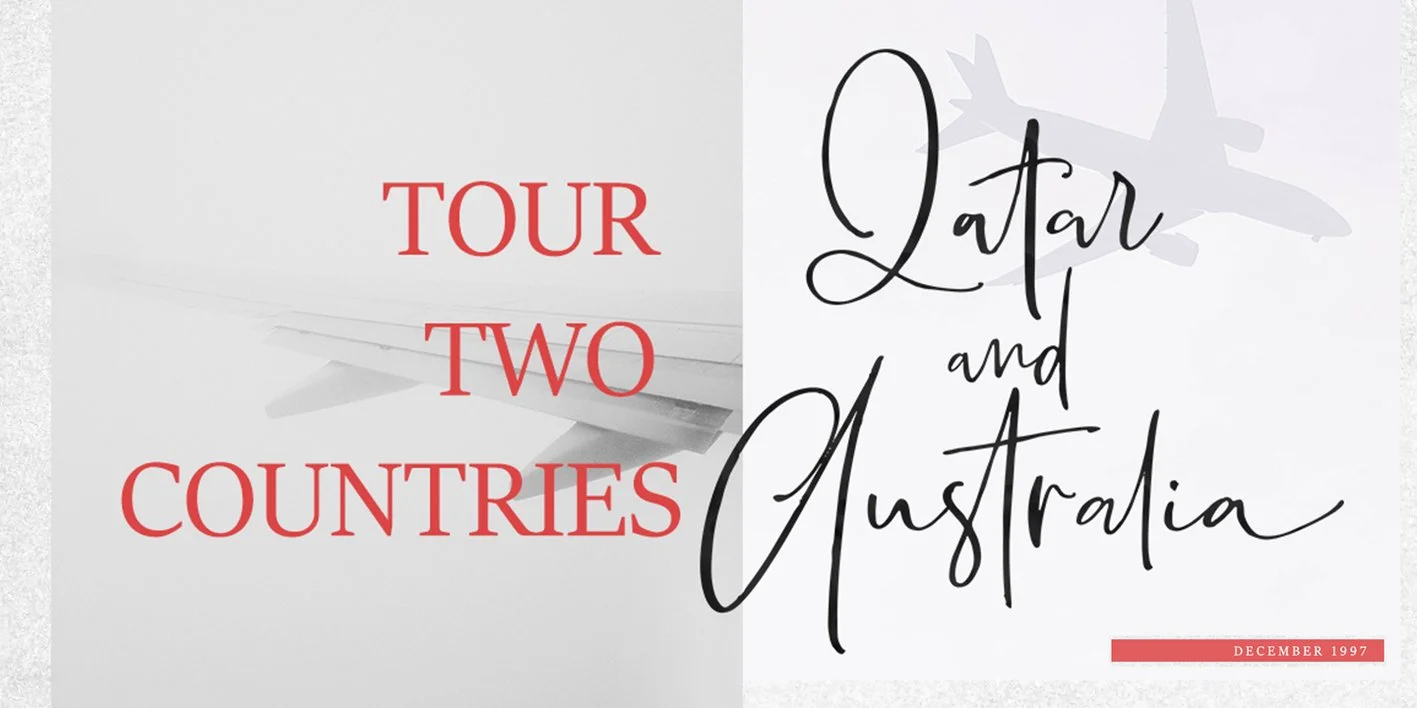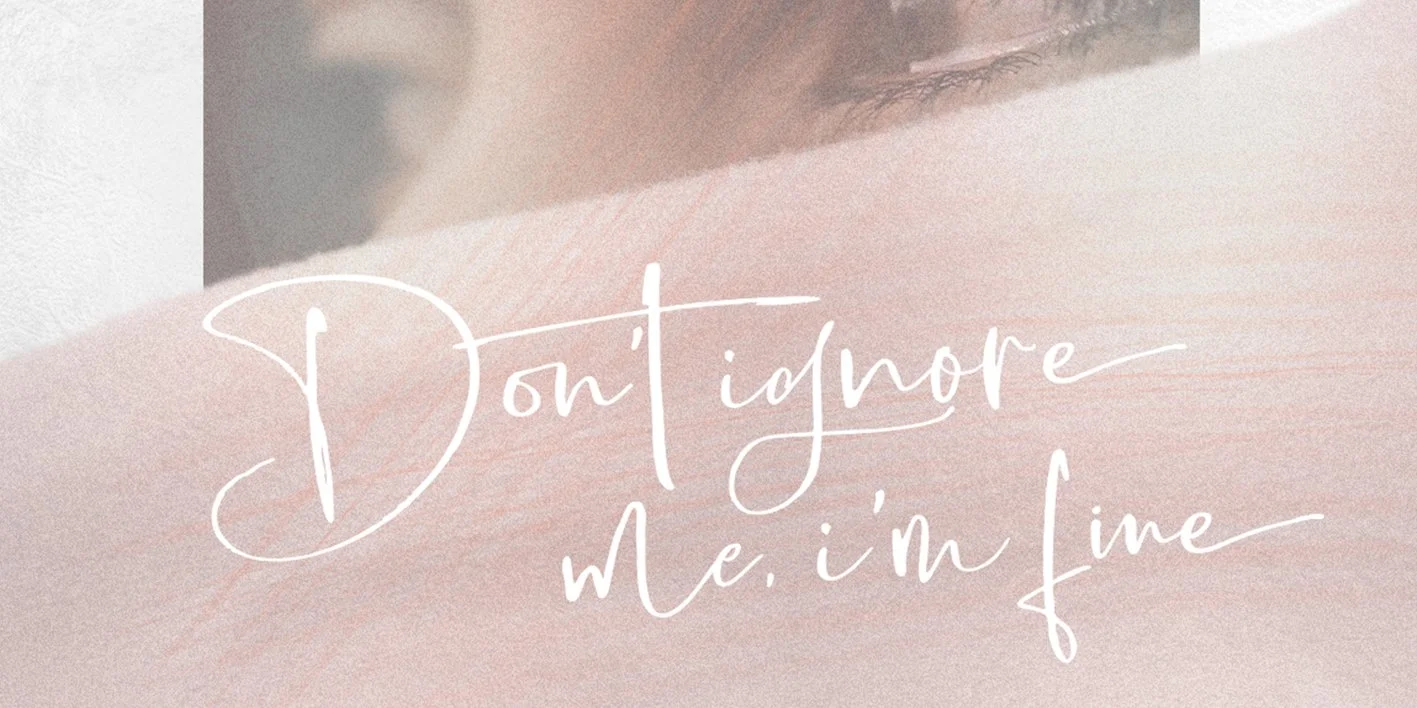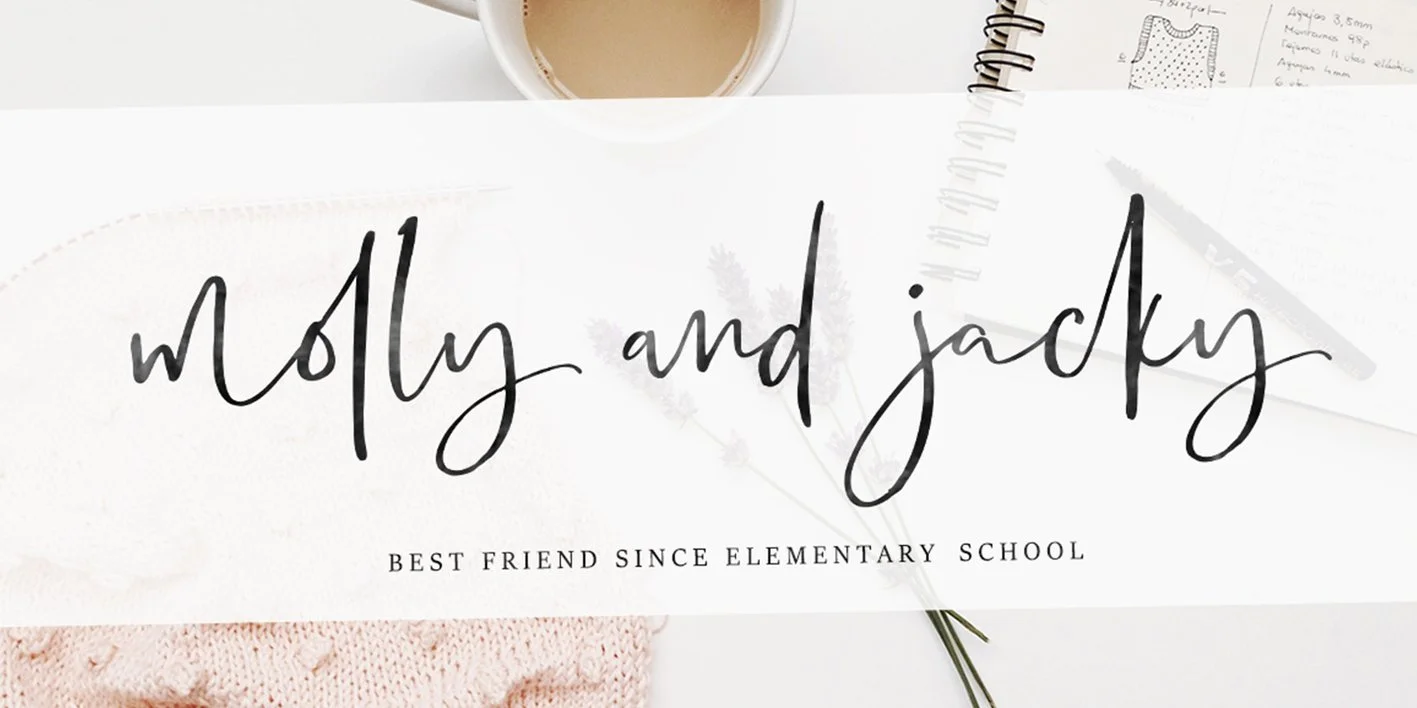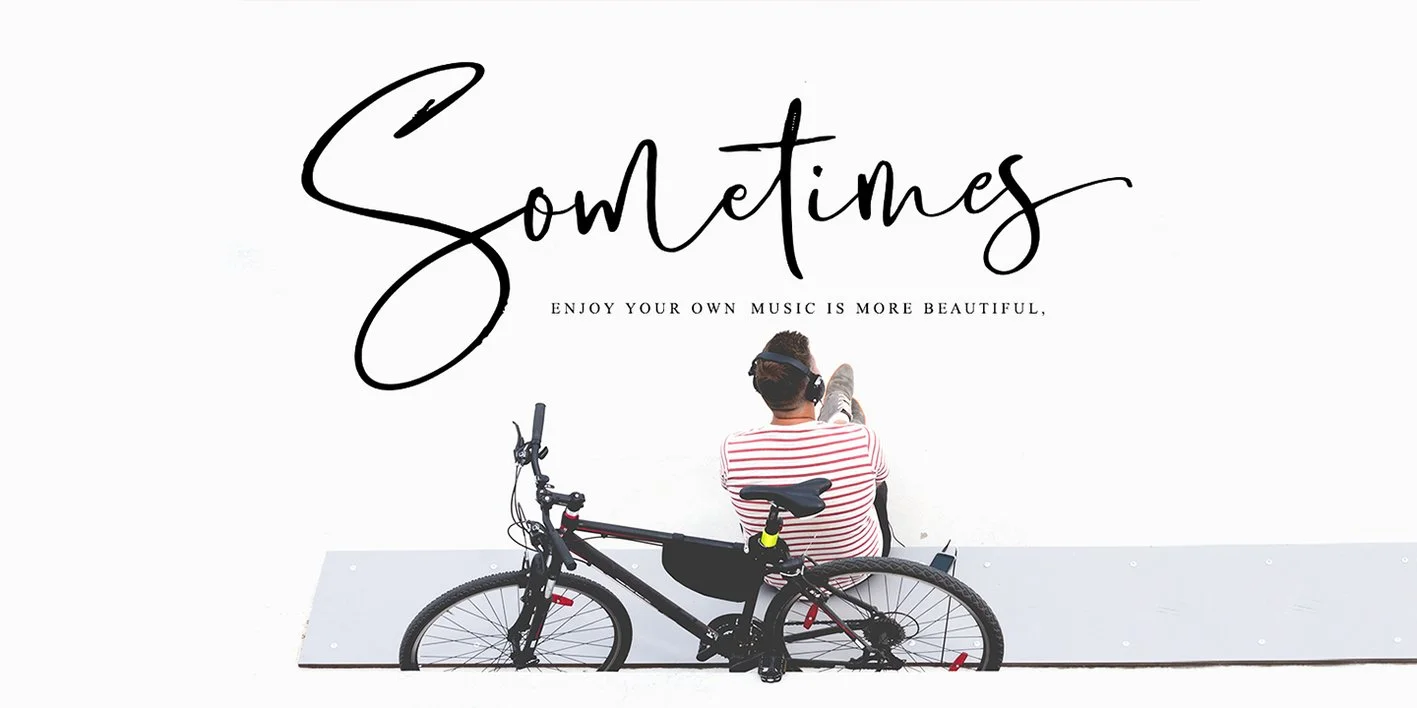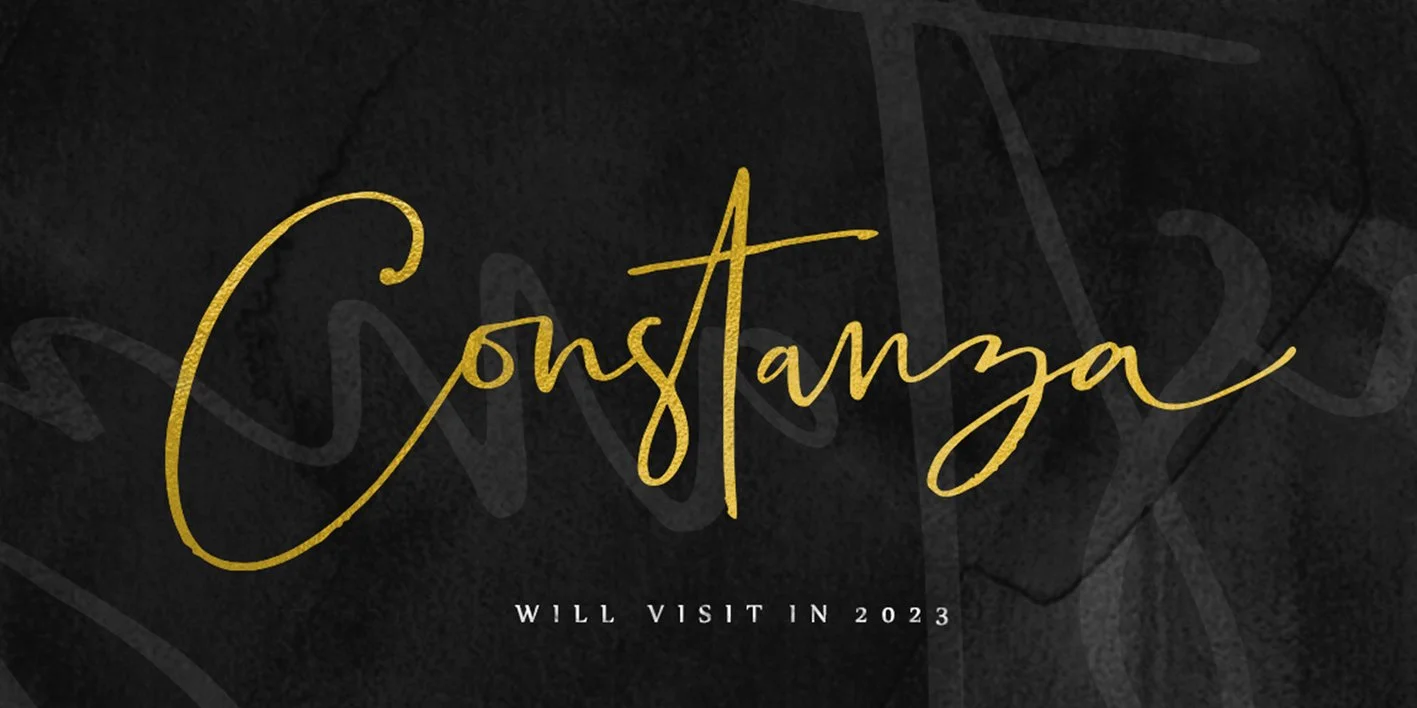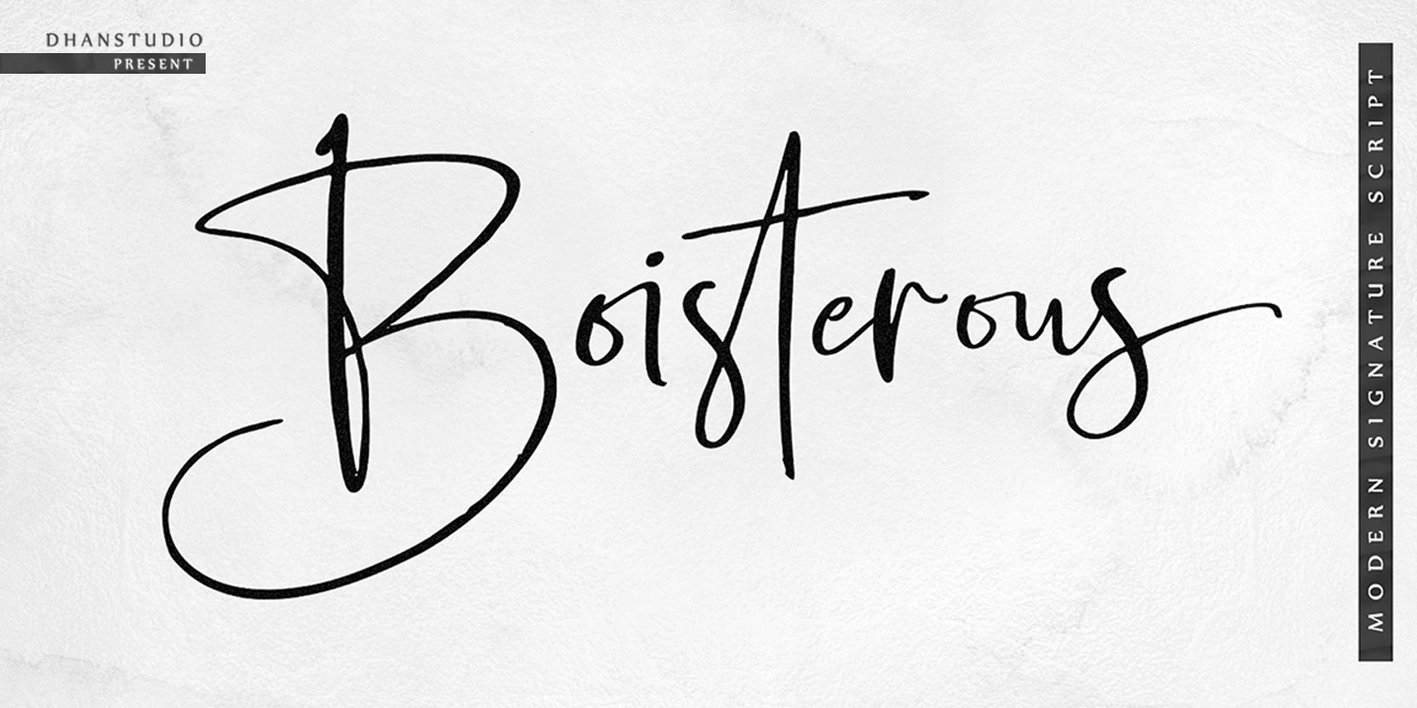
Boisterous Script Font
When a design brief calls for both controlled contrast that rewards close inspection and immediate visual impact, type choices matter — Boisterous Script answers that brief. The typeface brings an elegant, calligraphic sensibility to a broad range of creative disciplines, with distinctive character without sacrificing readability that holds up whether the work is print-first or screen-first.
In practice, Boisterous Script proves particularly effective for environmental graphics, perfume labels, beauty packaging, social media graphics, annual reports. Designers reaching for it find that the type decisions feel resolved rather than laboured — a useful quality when client timelines are tight.
The range of applications extends to brand identity systems, poster creation, fragrance labels, packaging design. That breadth is deliberate: the proportions and spacing were stress-tested across a wide range of mock briefs before the typeface was finalised.
Boisterous Script sits comfortably alongside both classic and contemporary typefaces in multi-font hierarchies. It takes direction rather than competing for attention — a quality that experienced designers know is harder to find than it appears.
Art directors commissioning type-led campaigns find Boisterous Script a reliable choice for projects that demand both personality and restraint. The design avoids the self-conscious quirkiness that dates quickly, settling instead for considered distinctiveness that holds up over time.